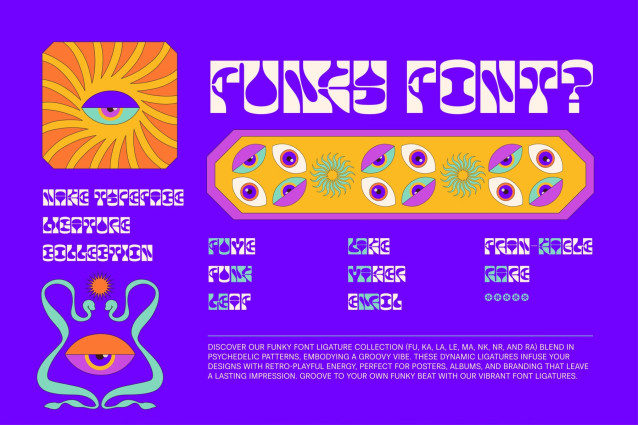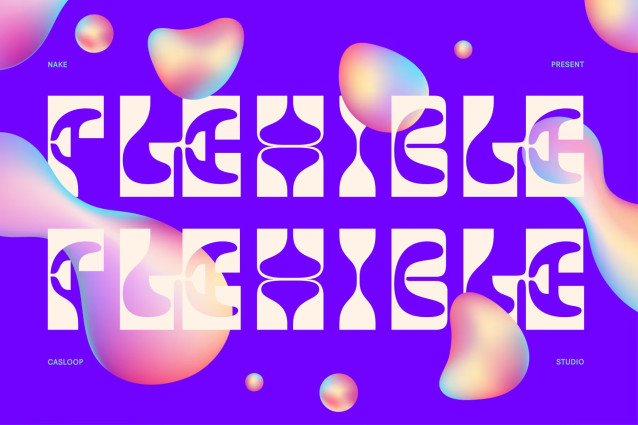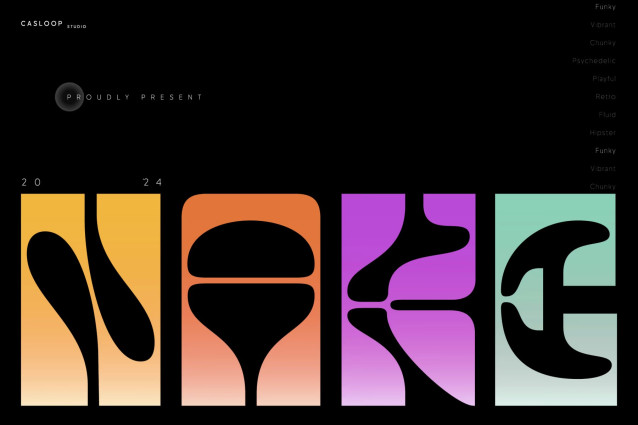
Nake – Funky Quirky Fluid Typeface Font
Introducing Nake, a font that embodies the groove and funk of yesteryears while resonating with the dynamic nimbus and expressive vibe of today’s digital media landscape. Its psychedelic Art Nouveau design injects a playful retro charm into any project, be it website design, packaging, or branding for a mystical product.
Characteristic of the font is its hipster appeal, evoking the funky spirit of the gold 70s and 80s while embracing contemporary trends. With a single variant weight, Nake stands out as a unique and impactful choice for those seeking to make a statement in their design endeavors.
Superiority shines through Nake’s ability to capture attention and evoke a sense of nostalgia, making it ideal for festivals, art installations, and digital media visuals. Its chunky yet quirky style adds an element of fun to any project, ensuring it remains memorable and viral-worthy.